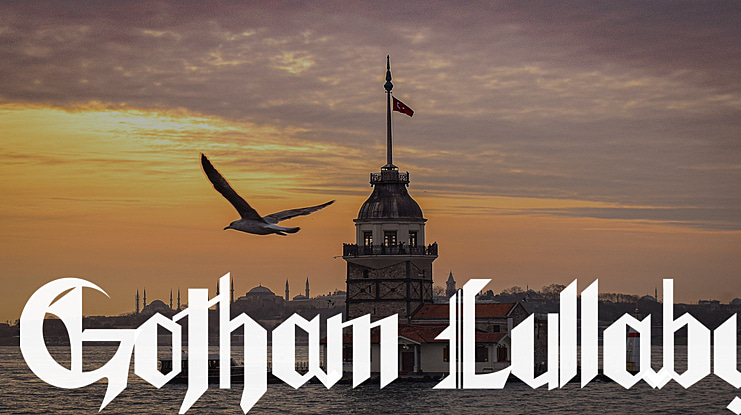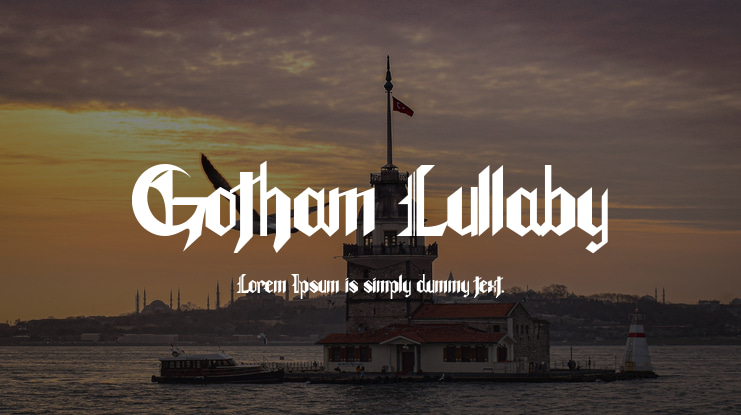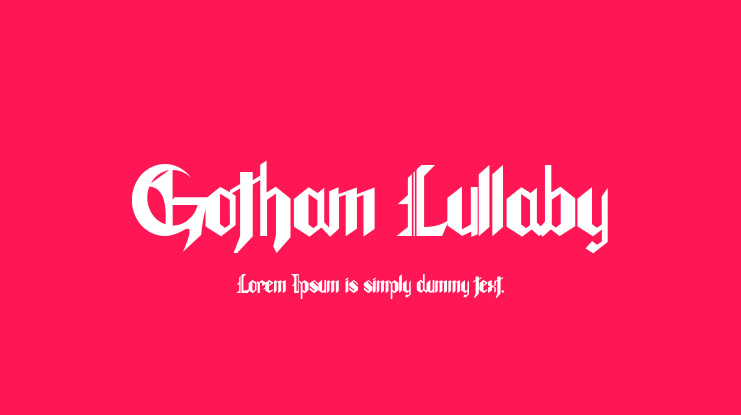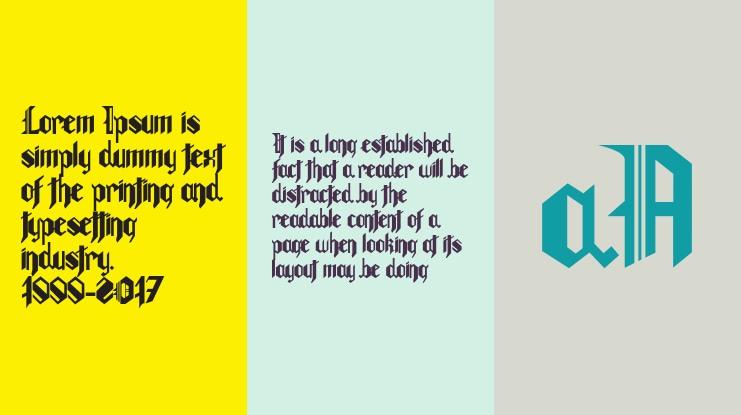
Gotham Lullaby Font
Matias Romero
Gothic font for gothic times. Inspired by the song of the same name by Meredith Monk, in Dolmen Music, a 1981 release by ECM New Series.